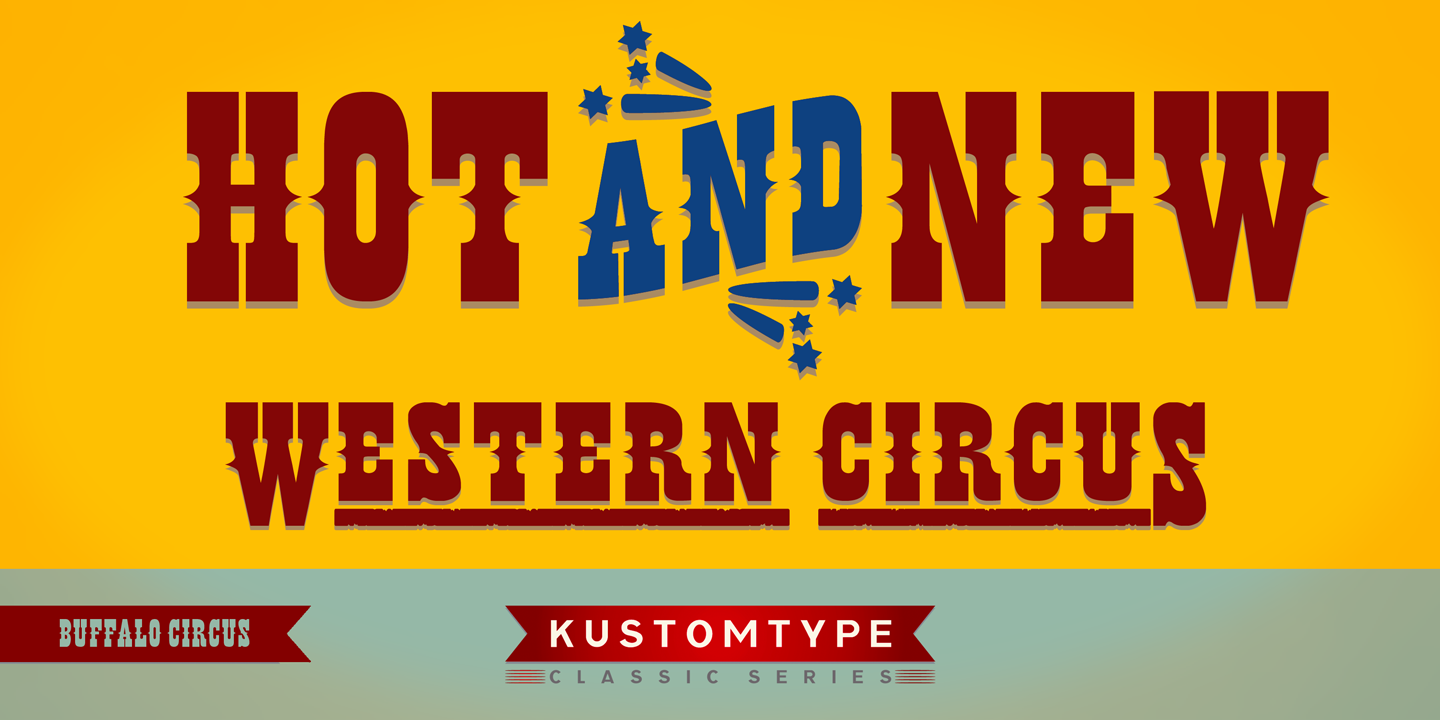
Buffalo Circus Font is perfect for carnival event posters, circus performance materials, vintage entertainment branding, Wild West themed designs, rodeo competition signage, fairground advertising, amusement park promotions, theatrical show bills, frontier festival materials, and nostalgic Americana marketing communications.
Buffalo Circus Font is exciting because it captures the thrilling spectacle and rugged adventure of frontier entertainment with its bold, show-stopping letterforms that evoke the dust-kicking excitement of buffalo stampedes and the mesmerizing magic of traveling circuses. Its dramatically expressive character design reflects both the untamed power of the American West and the captivating wonder of classic circus performances, making it perfect for brands seeking to create unforgettable entertainment experiences.
Buffalo Circus Font family includes light, regular, medium, bold, and black weights, each with corresponding italic versions. The font family also features Western ornaments, circus-inspired decorative elements, frontier symbols, and entertainment ligatures that enhance its spectacular aesthetic and versatility.
This spectacularly entertaining typeface represents the perfect fusion of Wild West adventure and circus magic. Buffalo Circus Font Free Download enables designers to experience its show-stopping appeal before making a commercial commitment. The font's ability to convey both rugged frontier spirit and captivating entertainment makes it ideal for brands targeting adventure seekers and entertainment enthusiasts.
Whether you're developing entertainment venue identities, creating festival promotional materials, or designing themed attraction communications, Buffalo Circus Font brings an unmistakable sense of frontier excitement and circus spectacle to every project. Its dramatic character and entertainment heritage create powerful connections that transport audiences to the thrilling world of classic American entertainment.
The font's versatility excels in entertainment and themed environments where spectacle and adventure are paramount. Its circus character makes it particularly effective for theme parks, entertainment venues, festival organizers, and adventure tourism brands seeking to establish exciting connections with audiences hungry for authentic American entertainment experiences.
For designers working on projects requiring genuine frontier excitement and circus appeal, Buffalo Circus Font offers an exceptional solution. Its spectacular presence and comprehensive entertainment-themed elements provide the tools needed for creating truly captivating communications, while its Wild West spirit ensures your designs capture the thrilling adventure and mesmerizing wonder that defines classic American frontier entertainment.